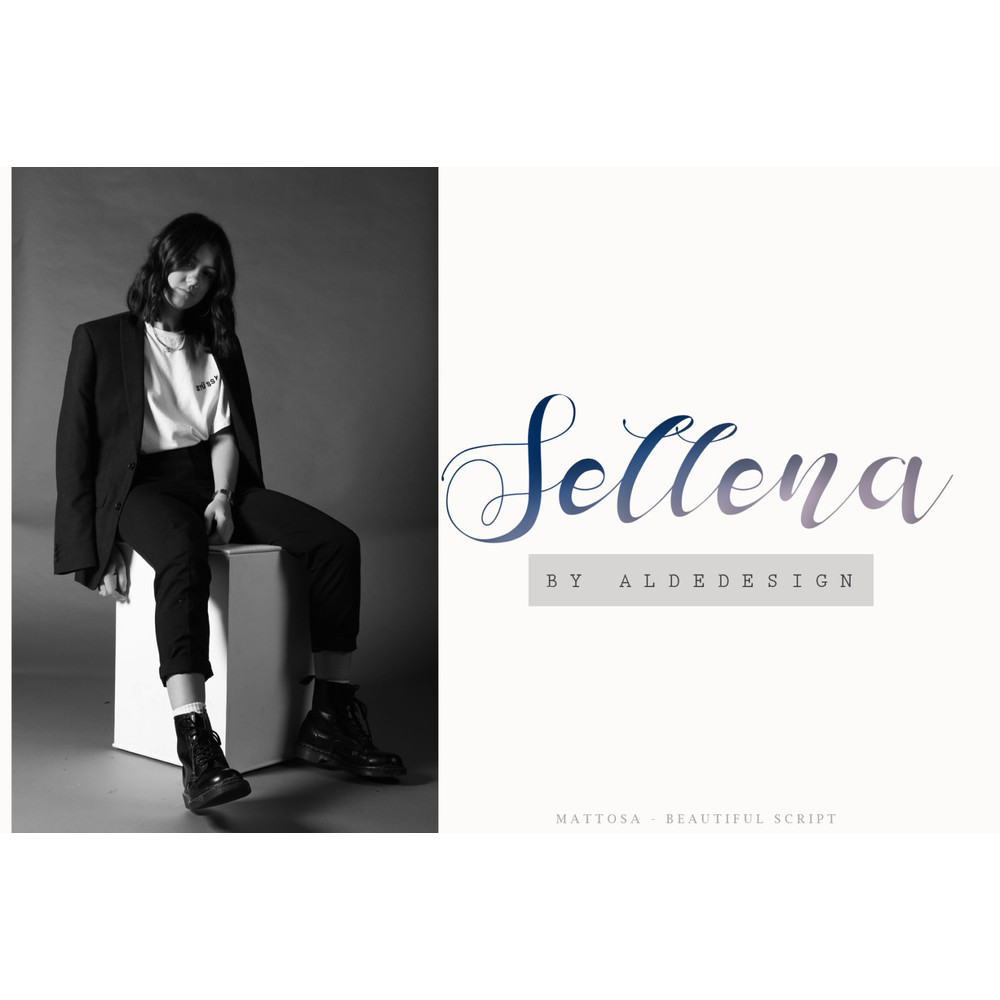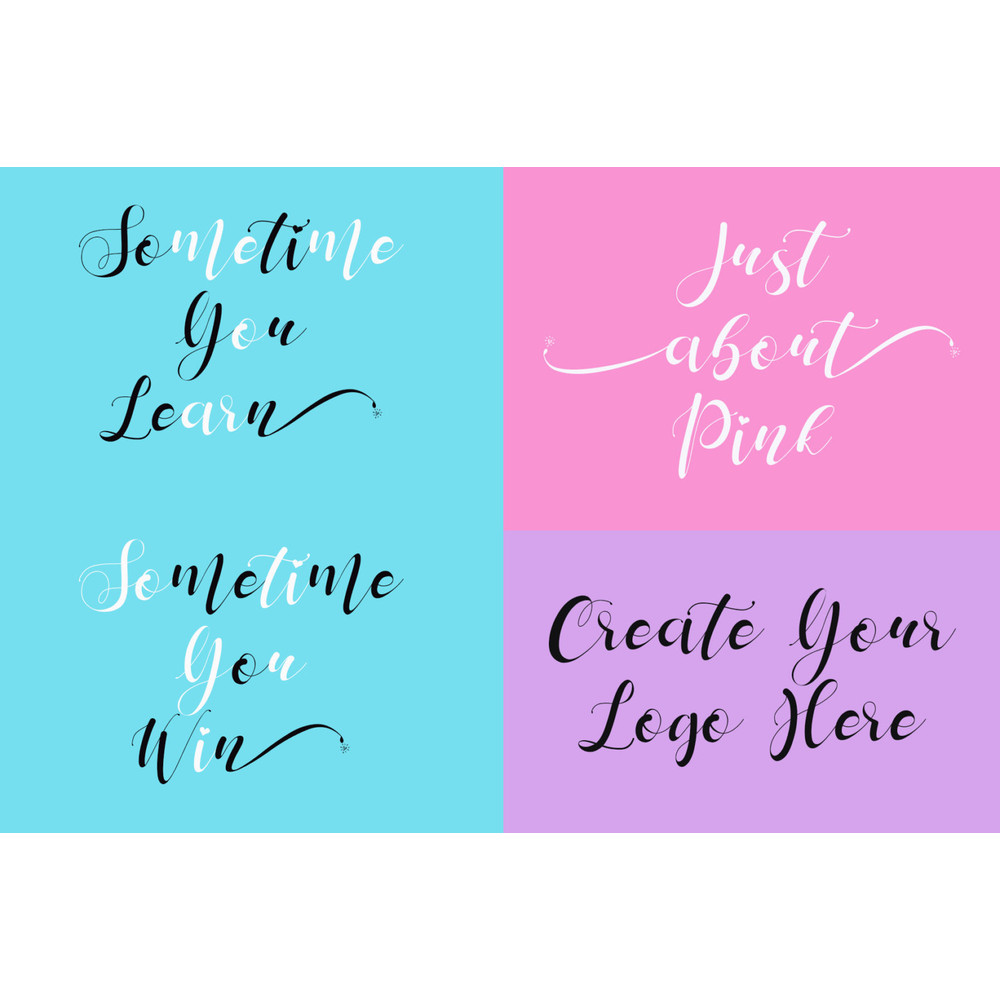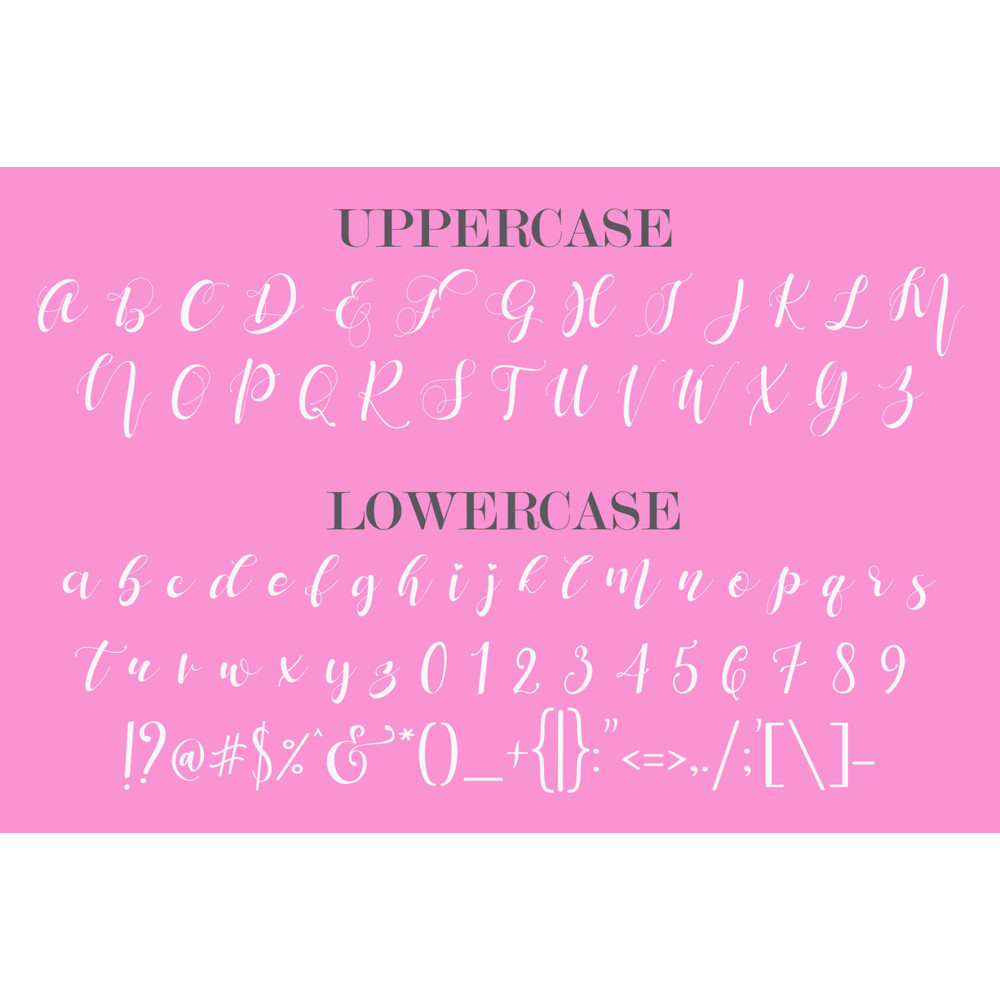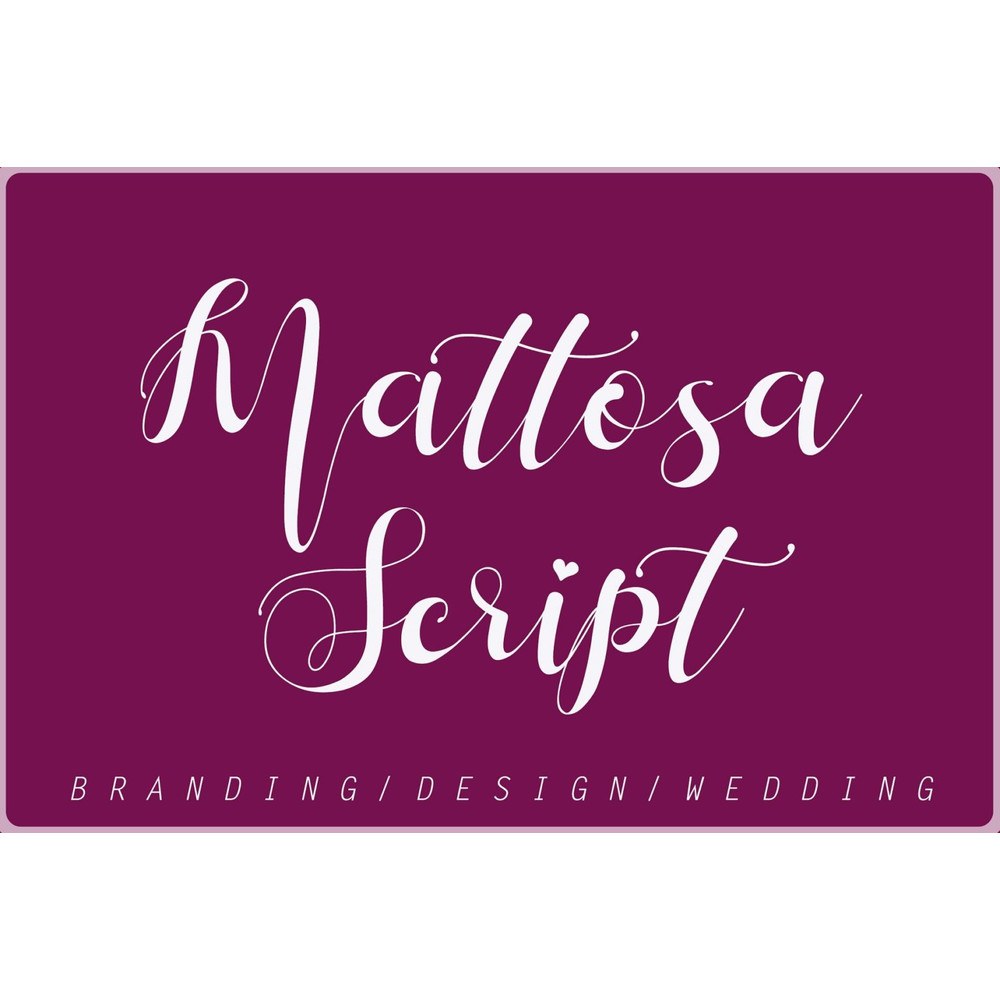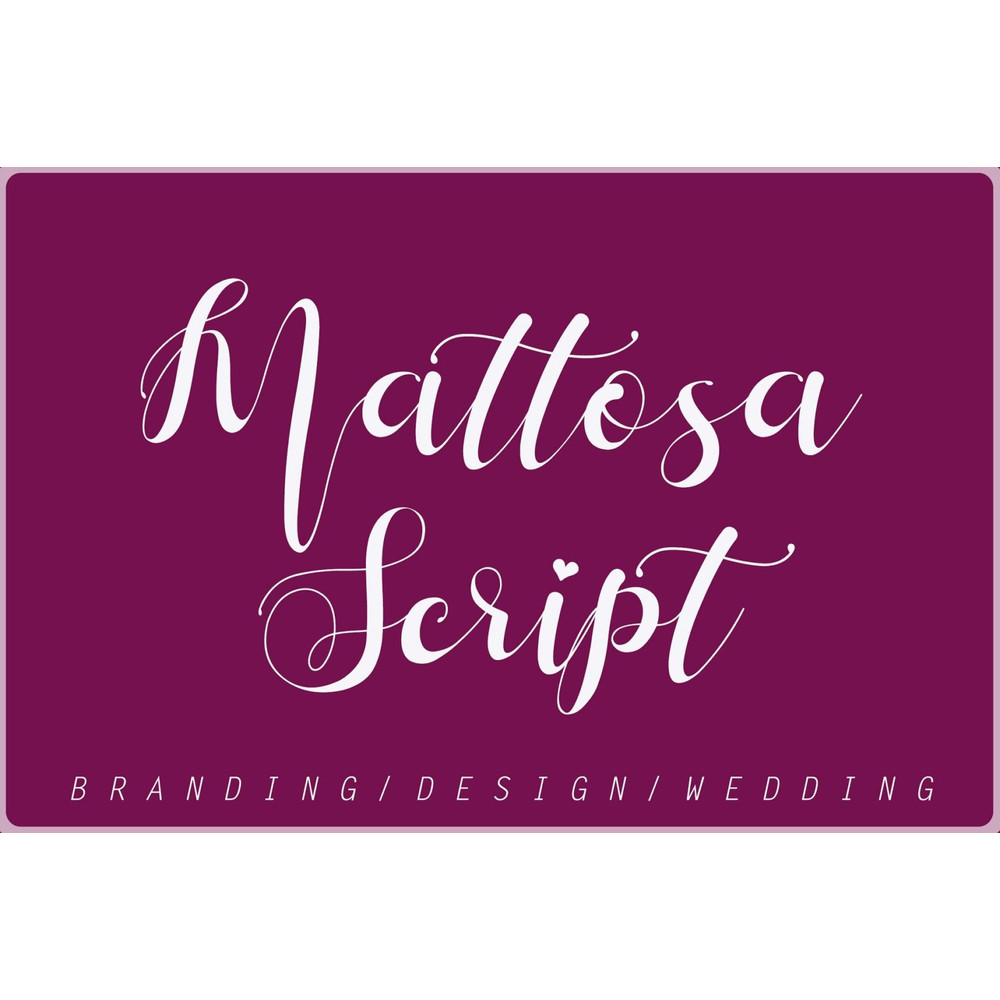
Mattosa Script is a beautiful script made by depth love. Mattosa Script with natural handwriting touch is suitable for you who needs a typeface for Headline, Apparel, Invitation, Branding, Wedding, Logo Design, Lettering, Logotype, Clothing, Poster, Magazine, and another design project.